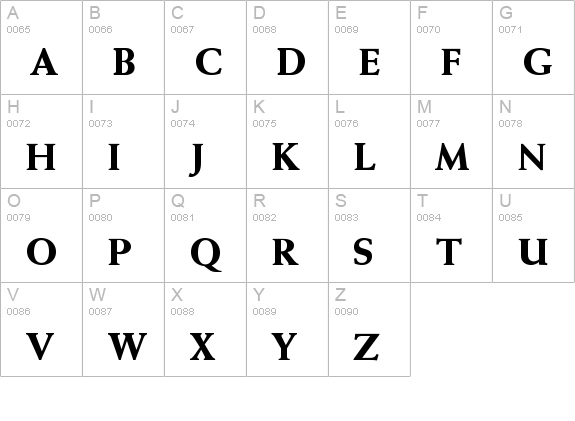
WeissAntiquaEF-Bold is a strong, high-contrast variant in the WeissAntiquaEF typeface family \xE2\x80\x94 well suited to headlines, attention-grabbing titles, and strong calls-to-action.
WeissAntiquaEF-Bold is a timeless font that exudes elegance and sophistication. With its bold and commanding presence, this font is perfect for adding a touch of class to any project. Whether you're designing a wedding invitation, creating a logo for a luxury brand, or crafting a stylish headline, WeissAntiquaEF-Bold will make a lasting impression. This font features a unique blend of classic serifs and contemporary design elements, resulting in a harmonious balance between tradition and modernity. The clean lines and precise detailing of each character give WeissAntiquaEF-Bold a refined and polished look. One of the best things about WeissAntiquaEF-Bold is that it is freely available to download at FontsMarket.com. This means that you can easily access this stunning font and incorporate it into your designs without any hassle. Whether you're a professional designer or a casual enthusiast, having access to high-quality fonts like WeissAntiquaEF-Bold can greatly enhance your creative projects. With its versatility and eye-catching appeal, WeissAntiquaEF-Bold is suitable for a wide range of applications. From print materials such as brochures and magazines to digital platforms like websites and social media graphics, this font can elevate the overall aesthetic and visual impact of your work. In conclusion, WeissAntiquaEF-Bold is a must-have font for anyone looking to add a touch of sophistication and elegance to their designs. Its bold and commanding presence, coupled with its timeless appeal, make it a versatile choice for various projects. And the best part? It is freely available to download at FontsMarket.com, allowing you to effortlessly incorporate this stunning font into your creative endeavors.